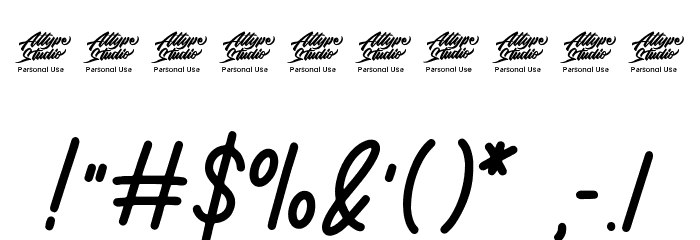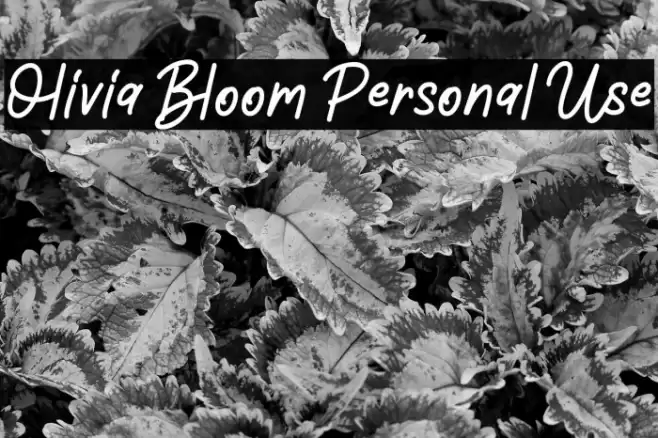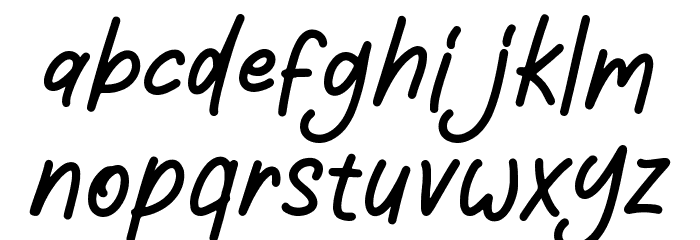
Olivia Bloom Personal Use Font
| Anwendungsfall | Logos, Invitations, Greeting Cards |
| Vorgeschlagene Projekte | Ideal for invitations, greeting cards, branding materials, and personal projects that require a handwritten touch. |